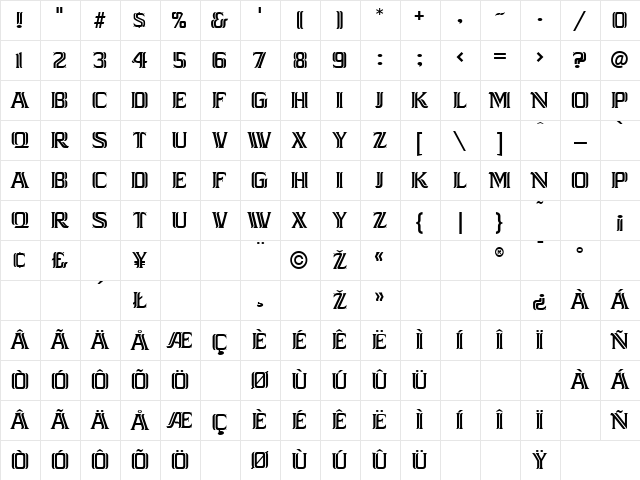
Pistachio Regular Free Font
Pistachio Regular
Foundry: Digitized by Dan X. Solo. Software by Dover Publications, Inc
Design Context for Pistachio
Pistachio is a composed and adaptable typeface that performs quietly and consistently across a wide range of design contexts.
Who designed the Pistachio Regular font?